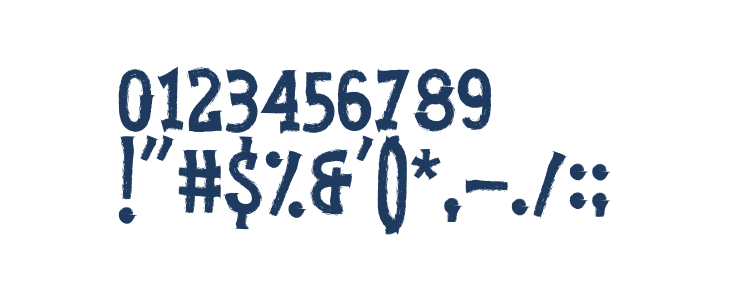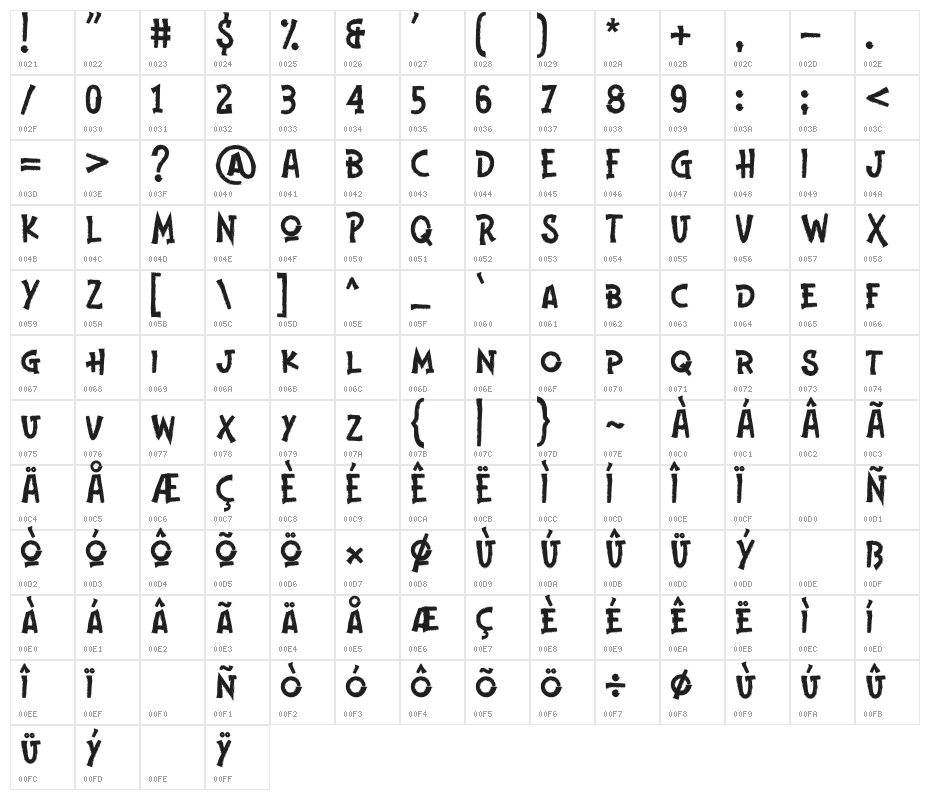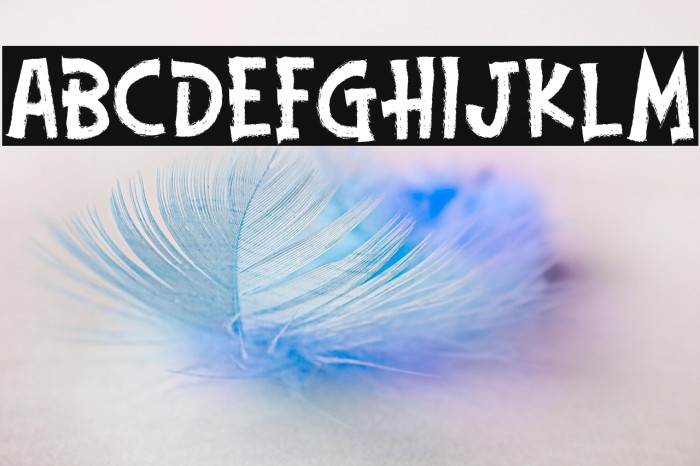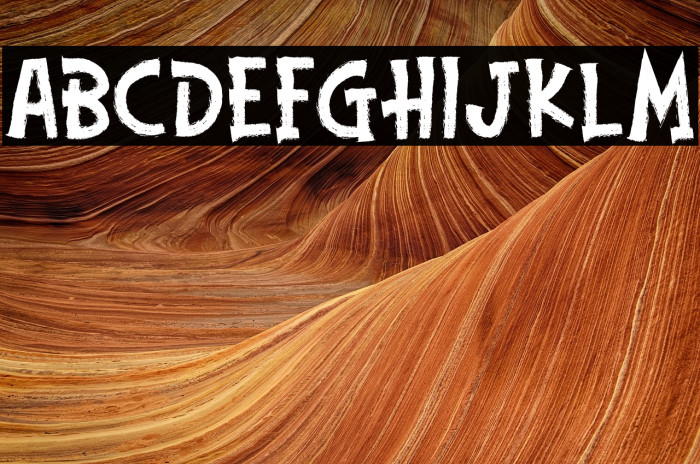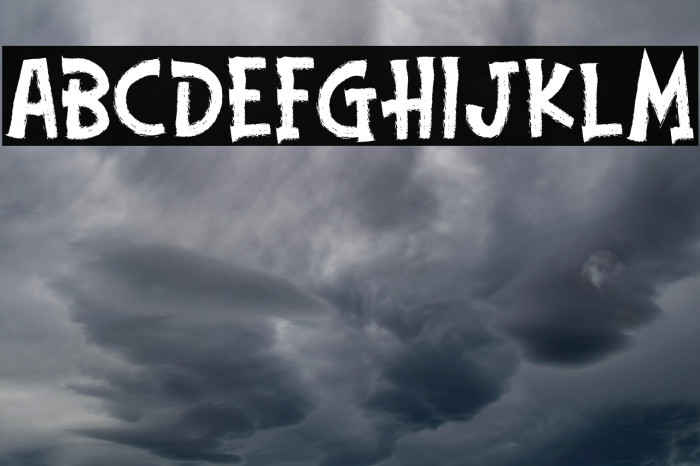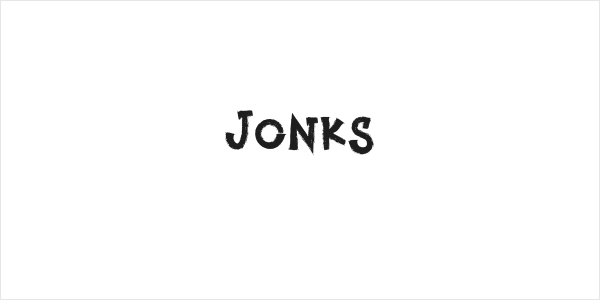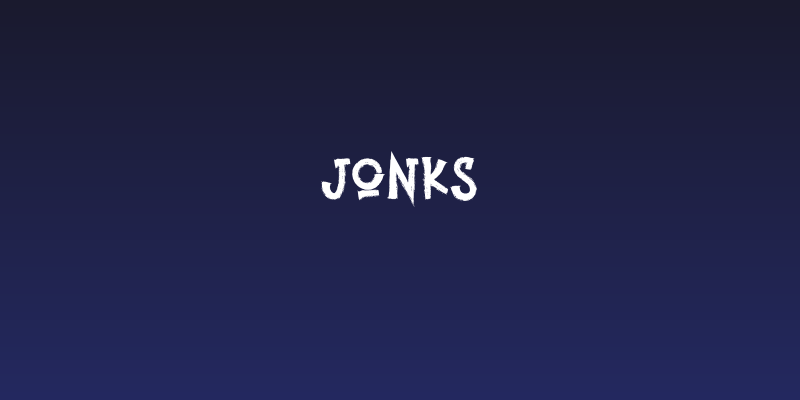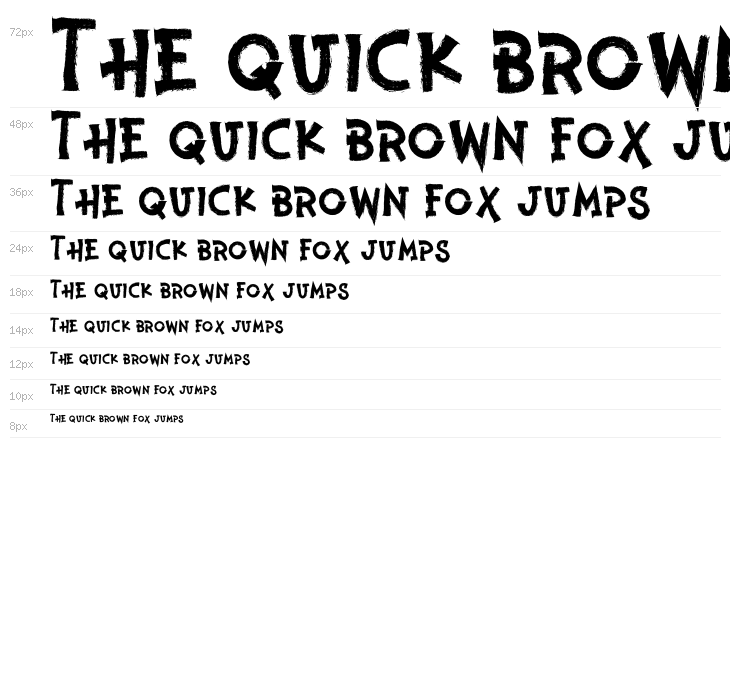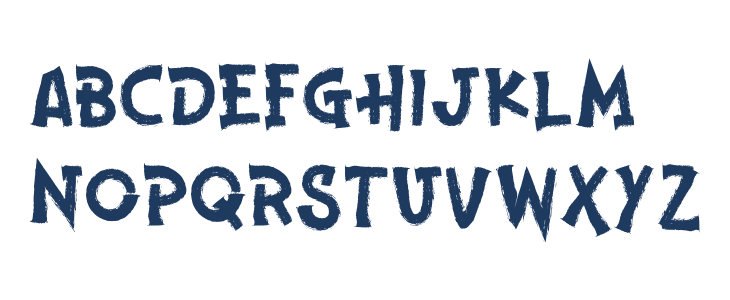
Jonks Font
Jonks Description
This font exhibits a bold and expressive style, characterized by its rough, hand-drawn appearance. The letters have an irregular, textured look, giving them a dynamic and energetic feel. The uppercase and lowercase letters maintain a consistent style, with slightly exaggerated serifs and varying stroke widths that add to the font's unique personality. The numbers and special characters follow the same aesthetic, ensuring a cohesive look across all glyphs. This font's distinctive style makes it stand out, making it ideal for projects that require a bold and artistic touch.
| Proposed Projects | Ideal for posters, album covers, branding, and any project needing a bold, artistic flair. |